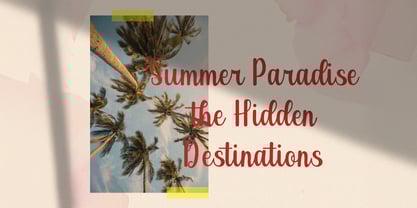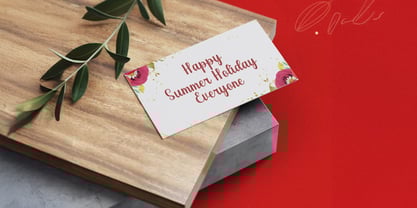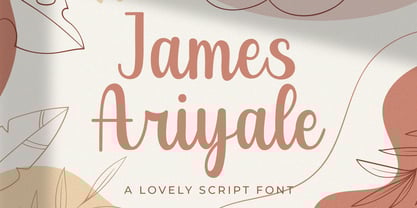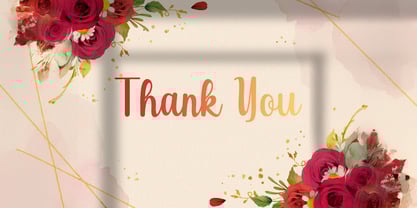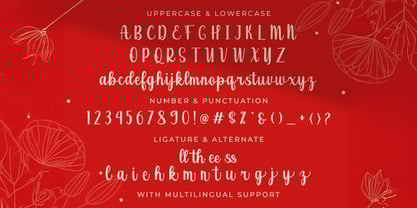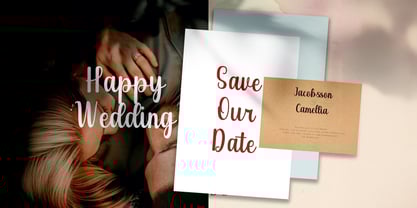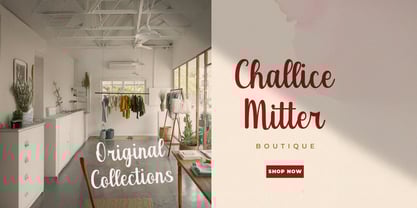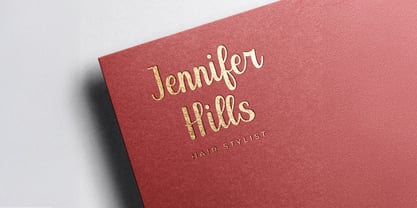
James Ariyale
by Stringlabs Creative Studio
The James Ariyale Font Family was designed by Virgiawan Listanto and published by Stringlabs Creative Studio. James Ariyale contains 1 styles. More about this family
James Ariyale is a sleek handwritten font that brings a touch of elegance and modern charm to your designs. With smooth, natural strokes and a polished flow, this font delivers a stylish handwritten look that feels both personal and professional. Ideal for branding, social content, and creative projects, James Ariyale adds a signature-quality feel that stands out with sophistication.
Designers: Virgiawan Listanto
Foundry: Stringlabs Creative Studio